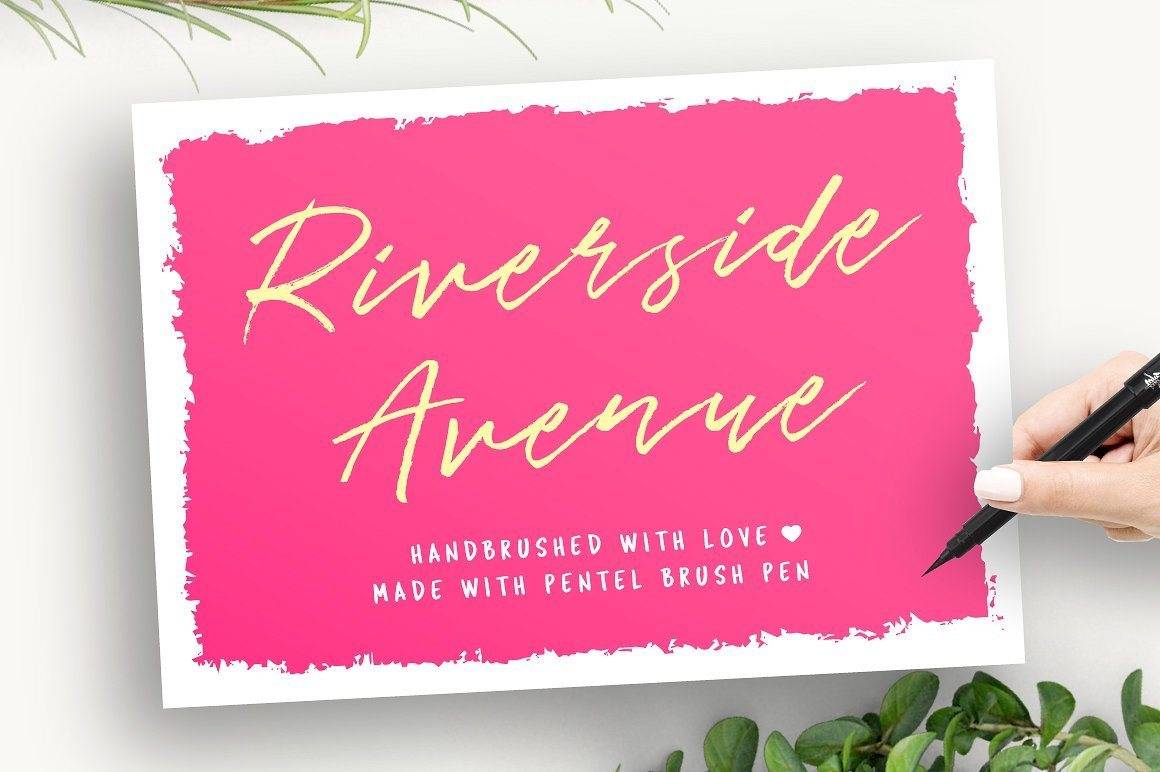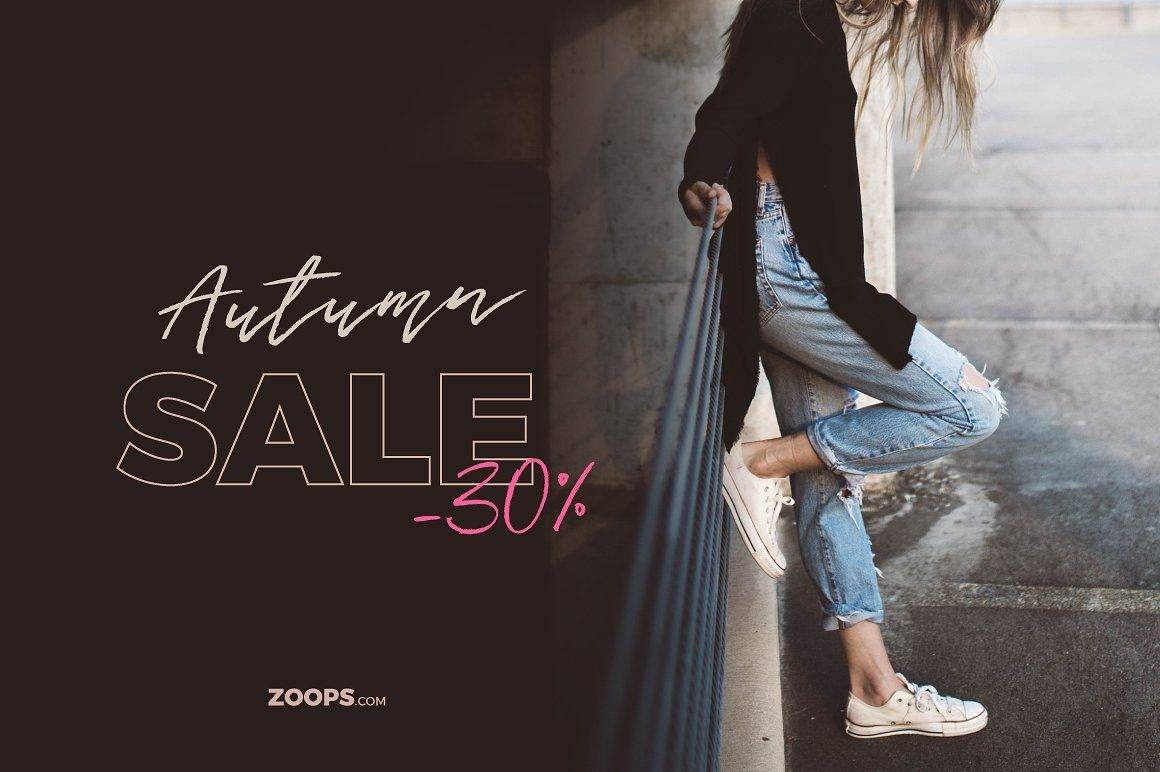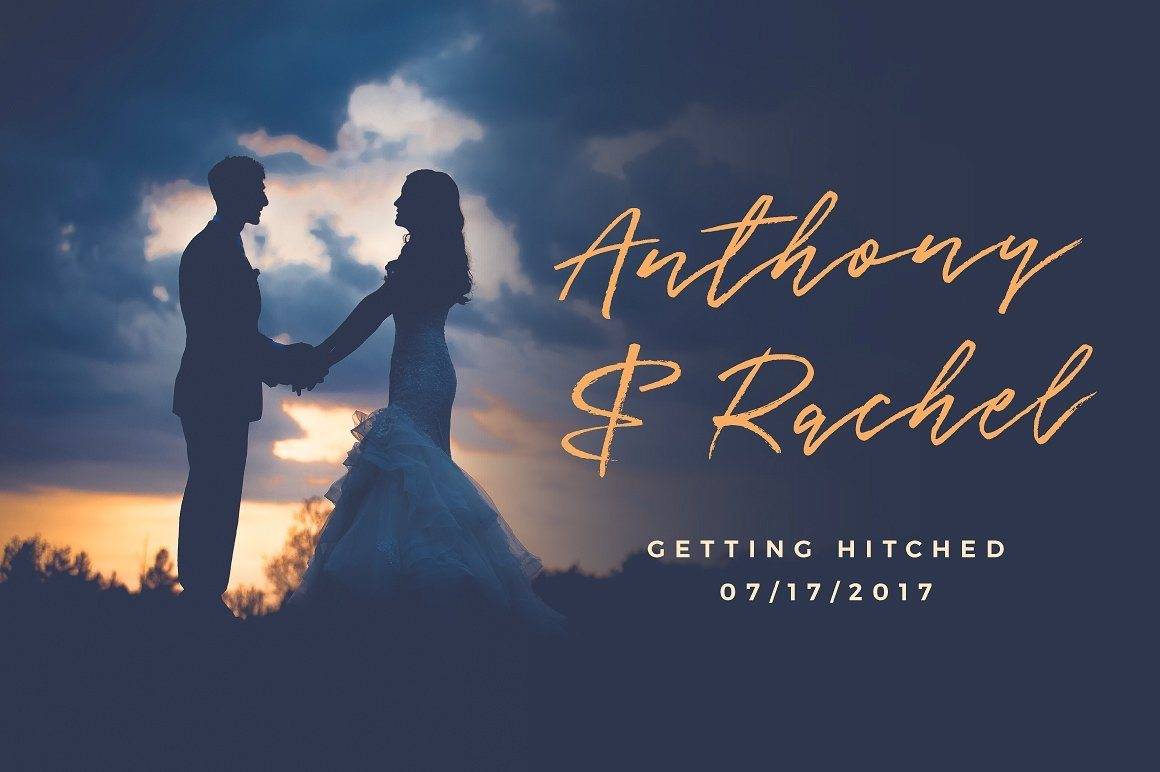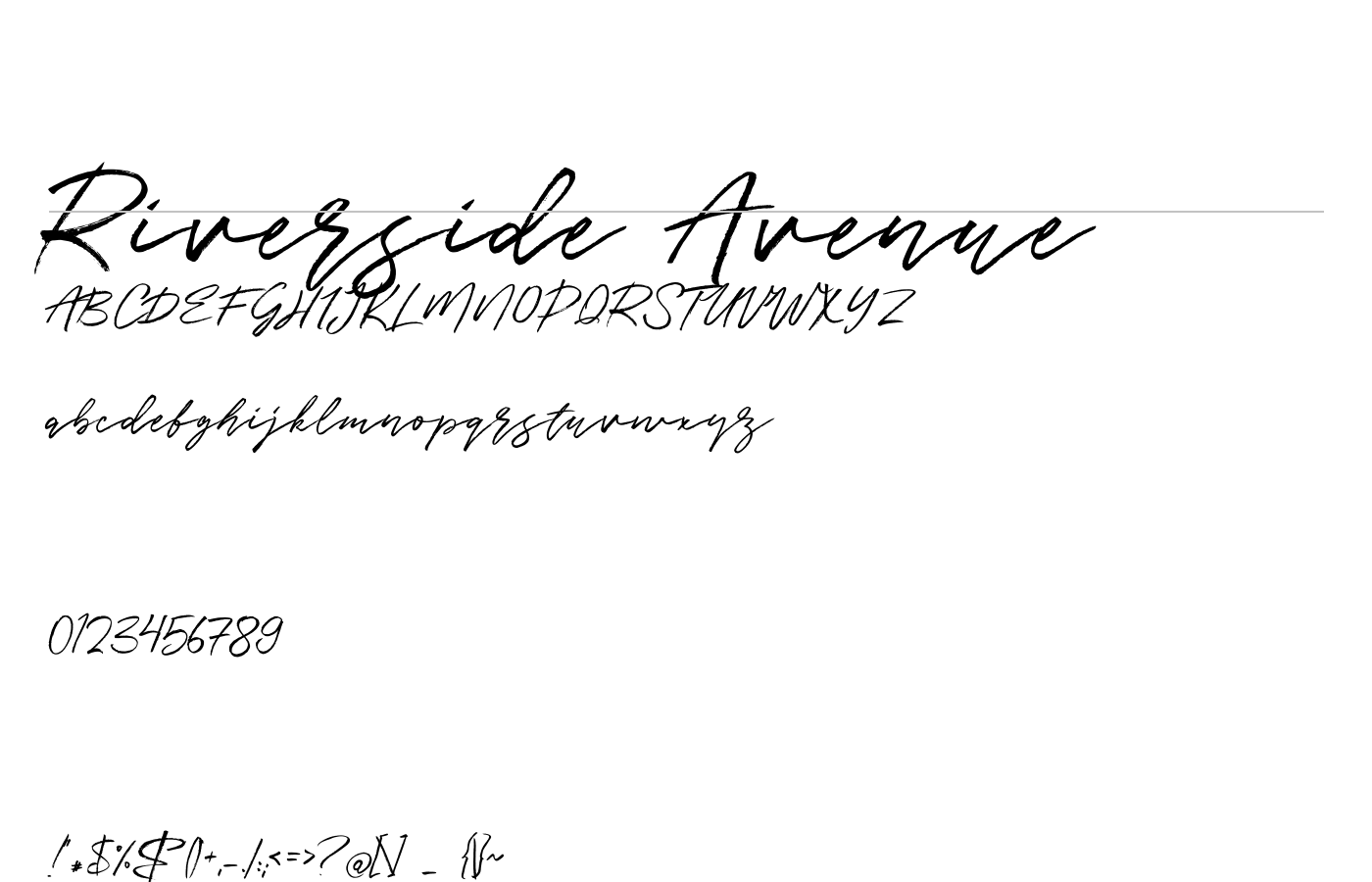
Riverside Avenue is a lively, handwritten script font with a casual yet elegant flair, characterized by its fluid strokes and varied line thickness that mimic natural brush calligraphy. Its tall, slightly condensed letterforms and smooth flowing connections make it ideal for personal branding, invitations, and creative projects that seek to convey warmth and sophistication. This font works beautifully in headlines and logos where a stylish, approachable, and modern handwritten touch is desired.
Riverside Avenue Font
About Riverside Avenue Font
| Font family | Riverside Avenue Font |
| Designer | Mats-Peter Forss |